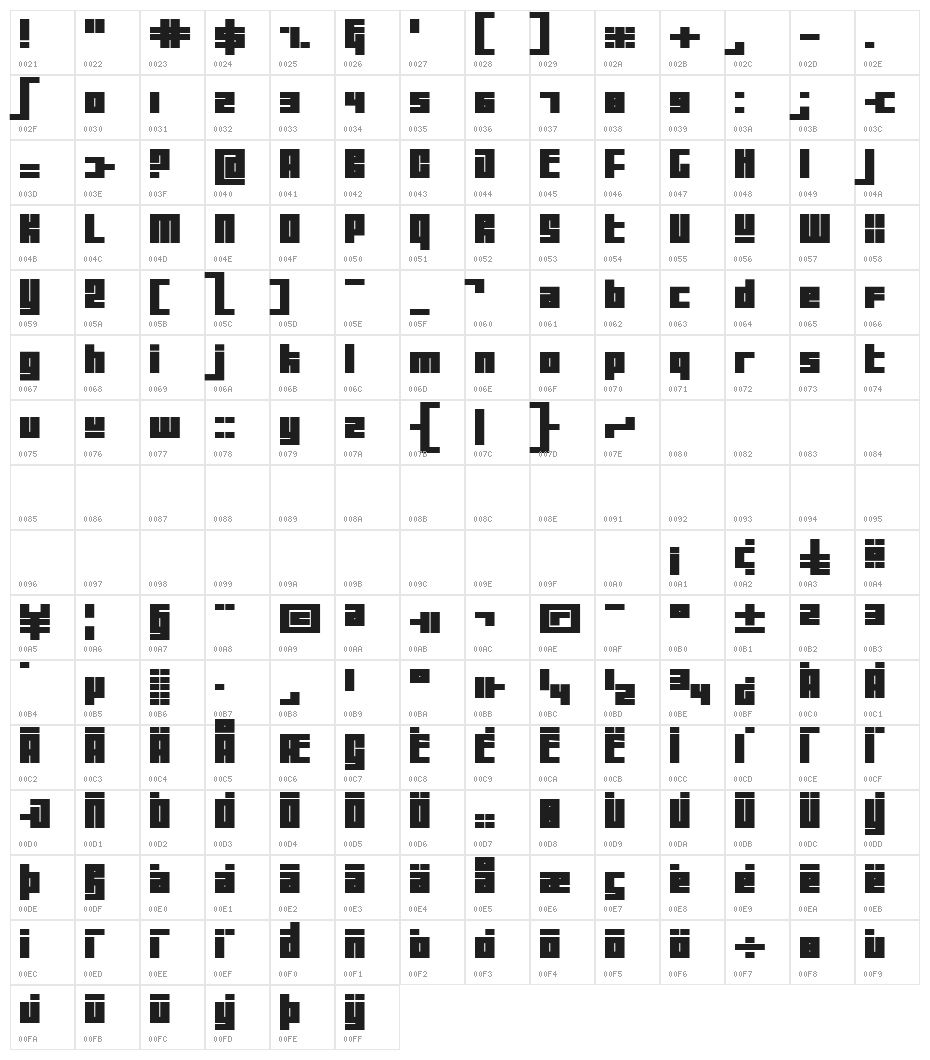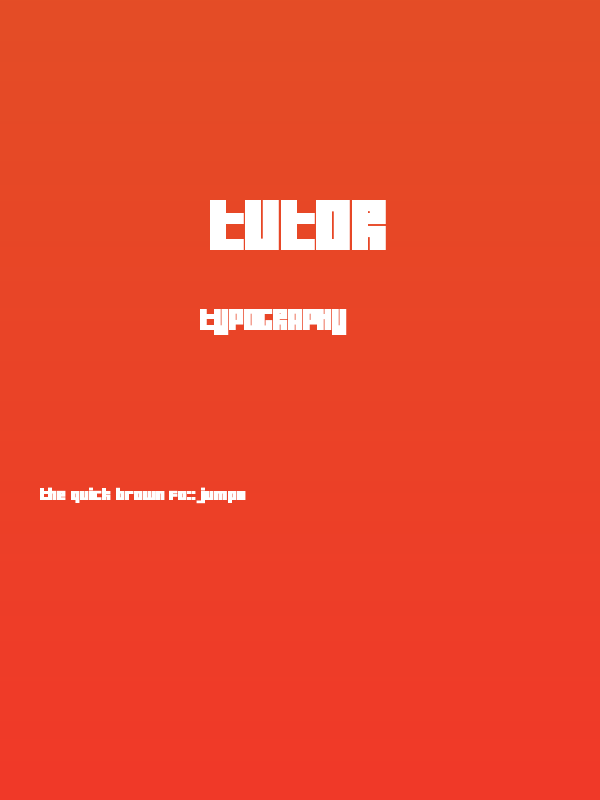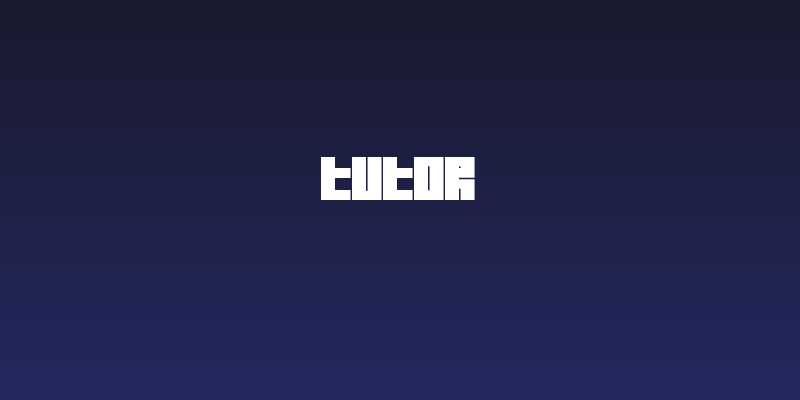
Tutor Font
Tutor Description
This font features a bold, geometric design with a strong emphasis on rectangular shapes and sharp angles. Each character is constructed with a uniform thickness, creating a cohesive and structured appearance. The uppercase and lowercase letters maintain a consistent style, with minimal differentiation in height, contributing to a monospaced feel. The numerals and special characters follow the same design principles, ensuring a seamless integration across all text elements. The font's blocky nature and lack of curves give it a modern, industrial aesthetic, making it stand out in any design context.
Proposed ProjectsIdeal for futuristic designs, tech branding, video game interfaces, and posters.